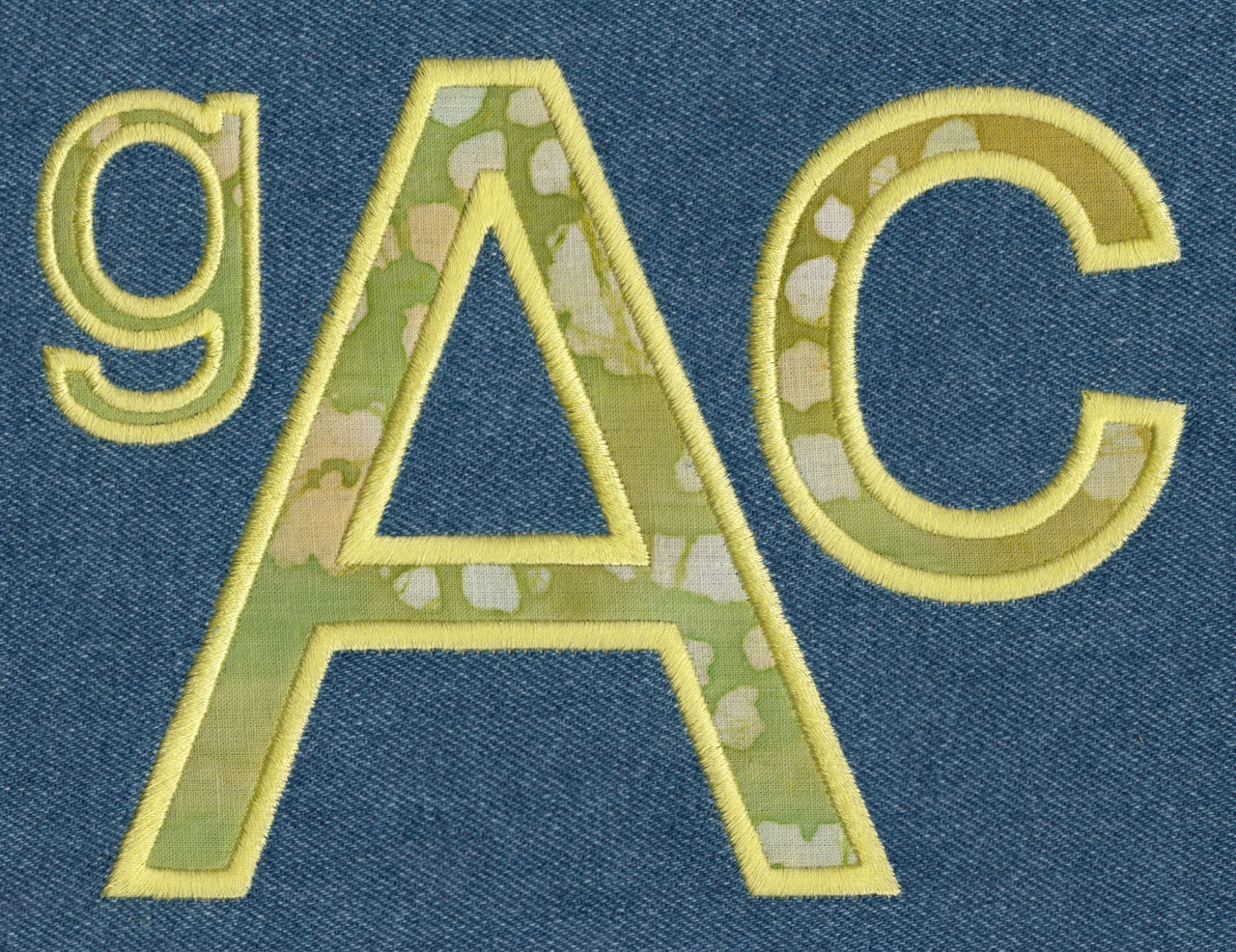
595 Arial Satin Applique Font
Arial Satin Applique Font comes in 2", 3", 4" and 5" heights based on the capital "A". Includes uppercase letters, lowercase letters, numbers and six punctuation marks. All sizes included in purchase price. Characters finished in standard applique with wide Satin overcast. All formats, size charts and applique instructions available for download.